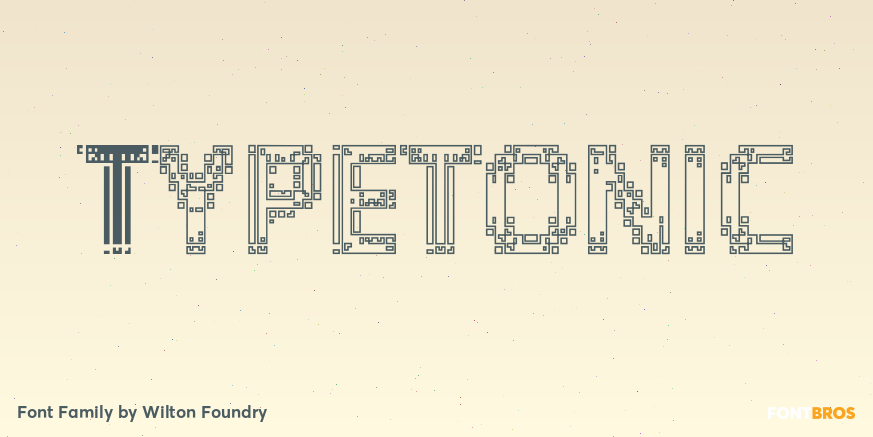
HomeFont BrosFuturisticTypetonic FuturisticSpecial Effect Typetonic FacebookXPinterestWhatsApp 1 of 1 About Typetonic is great display face for anything related to design, art or technology.  DOWNLOAD NOW People also explored Silli Admirable Font Cutelove Font Ghoul Font Paperclipped Font Starships Font Gerald Battom Font Daisy Flower Font Gloss Flower Lily Monogram Font 255 0 TagsTypetonic Font Previous articleHeadlight BlueNext articleFiguera Variable LEAVE A REPLY Cancel reply Comment: Please enter your comment! Name:* Please enter your name here Email:* You have entered an incorrect email address! Please enter your email address here Website: Save my name, email, and website in this browser for the next time I comment. Personal Use Free England Personal Use Free Read more about this font Hello Sarrah Personal Use Free Read more about this font Eigha Personal Use Free Read more about this font Lover Loves Personal Use Free Read more about this font BLOG Best Fonts for YouTube Videos: Make Your Thumbnails Stand Out Best Fonts for YouTube Videos: Make Your Thumbnails Stand Out Choosing the right font can make a massive difference in how your YouTube videos perform.... Where to Buy American Fonts Online in 2024 Modern Sans-Serif Fonts That Brands Love in 2025 Top 10 Handwritten Fonts That Elevate Your Designs